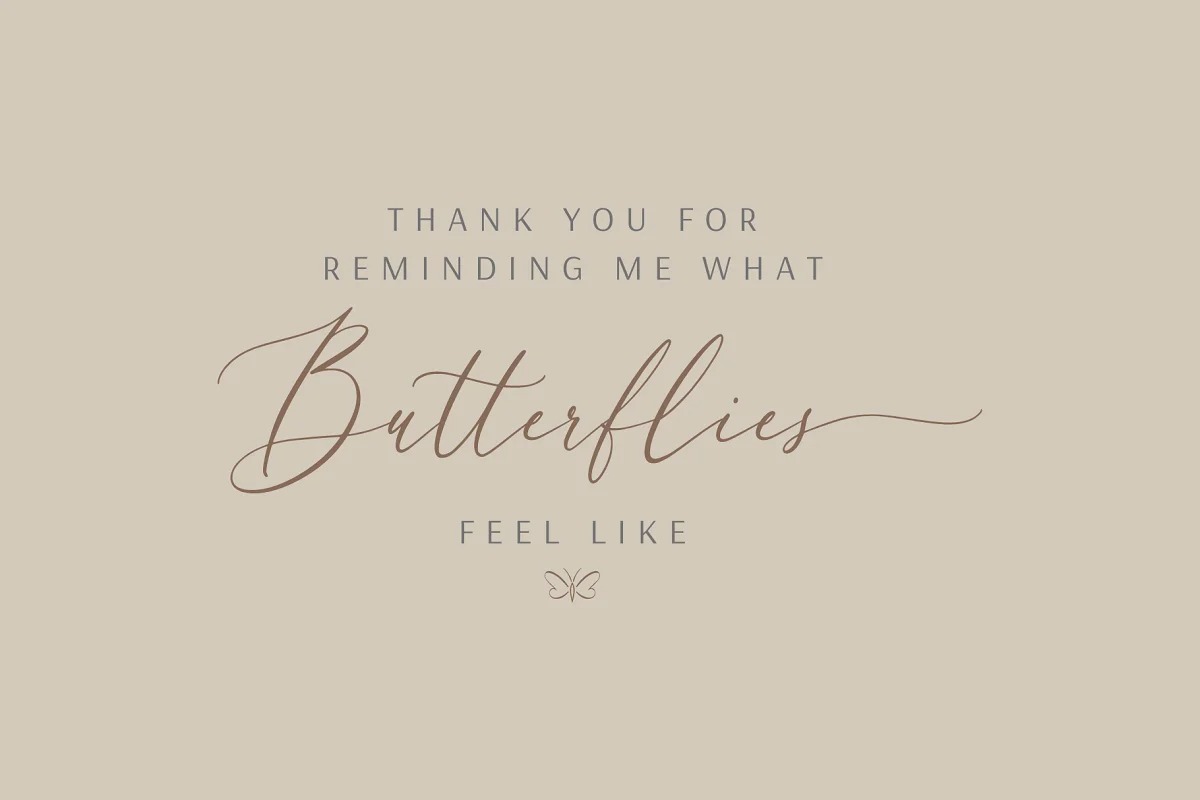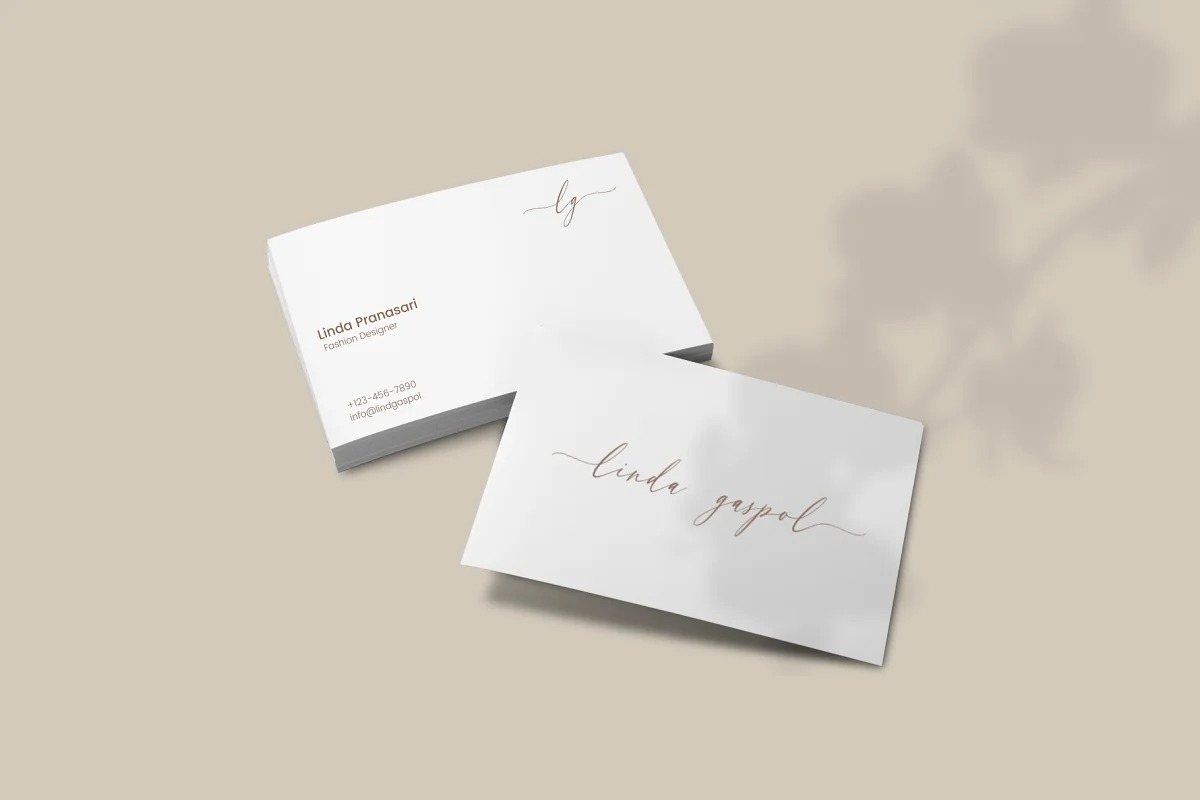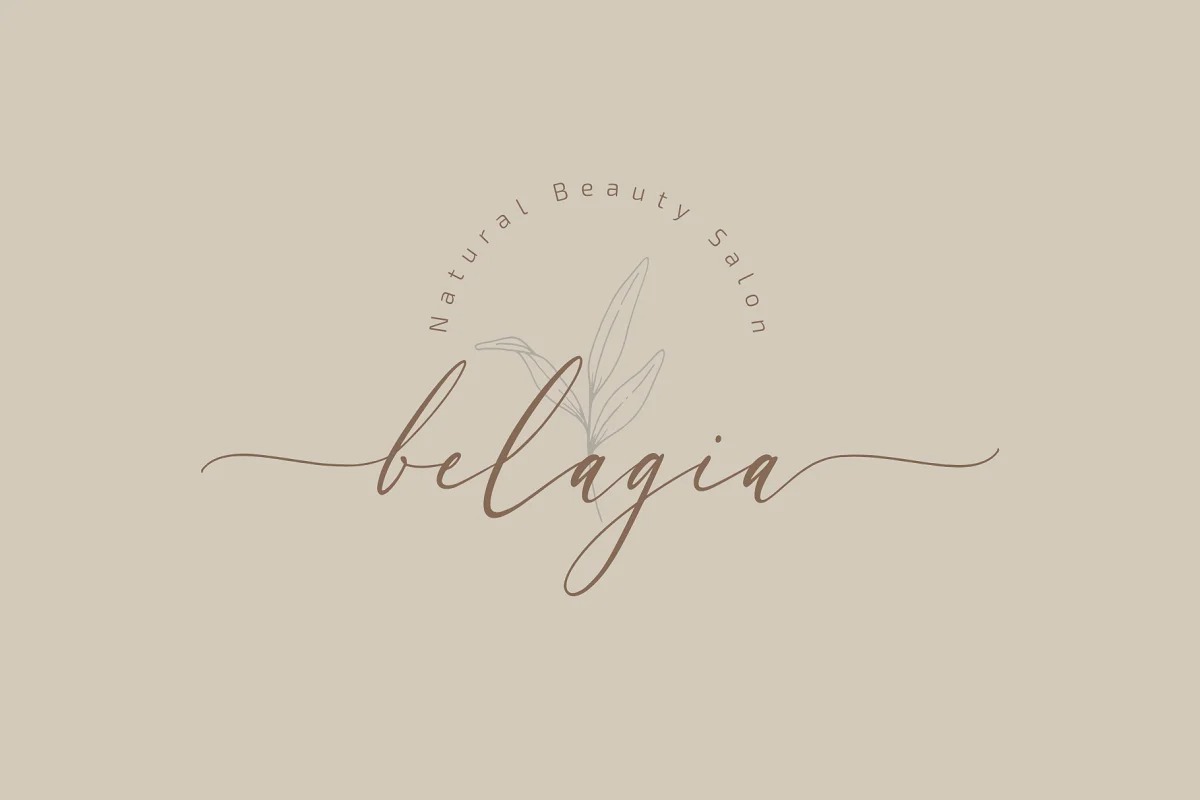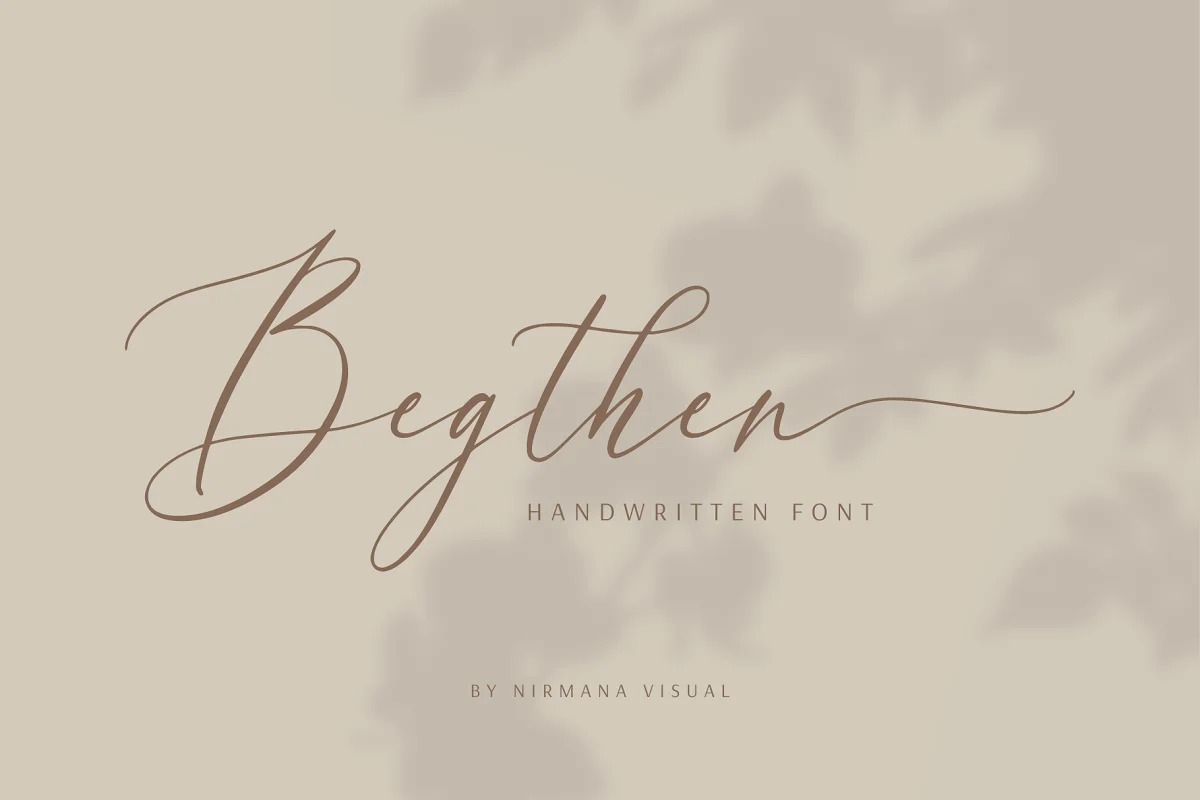
Begthen Calligraphy Font
This is sweet and romantic handwritten script typeface that is made with love and It has a casual and lovely touch, perfect for various design project that you wish to create. This is a beautiful combination of timeless elegance and authentic calligraphy, It has lowercase beginning and ending swashes. This font is perfect for wedding invitations, clothes or totes, business cards, and more.